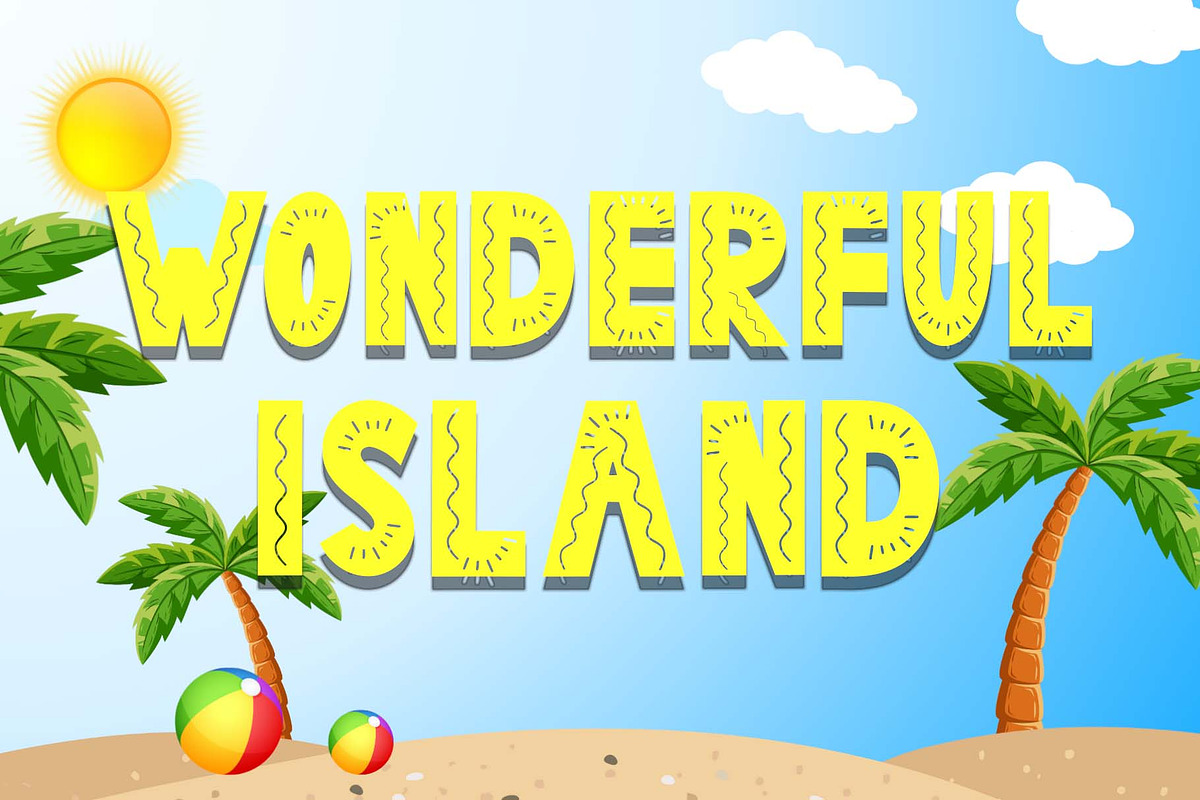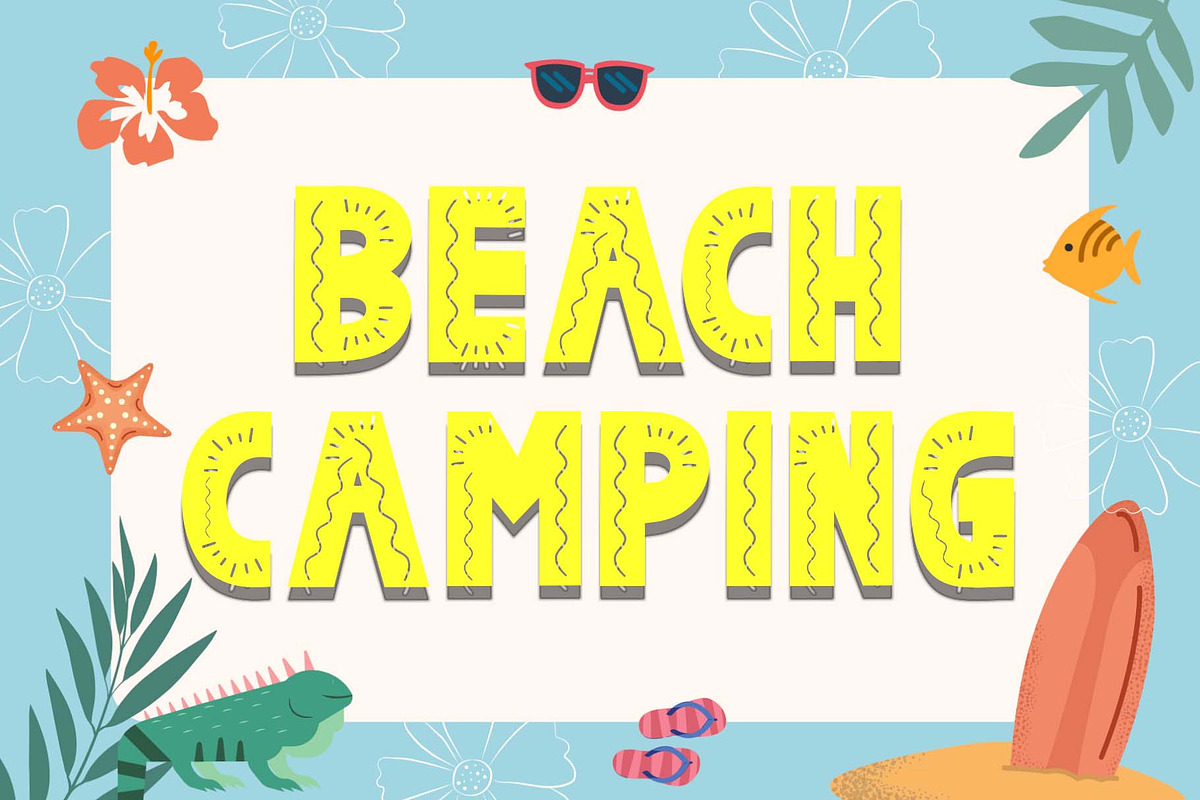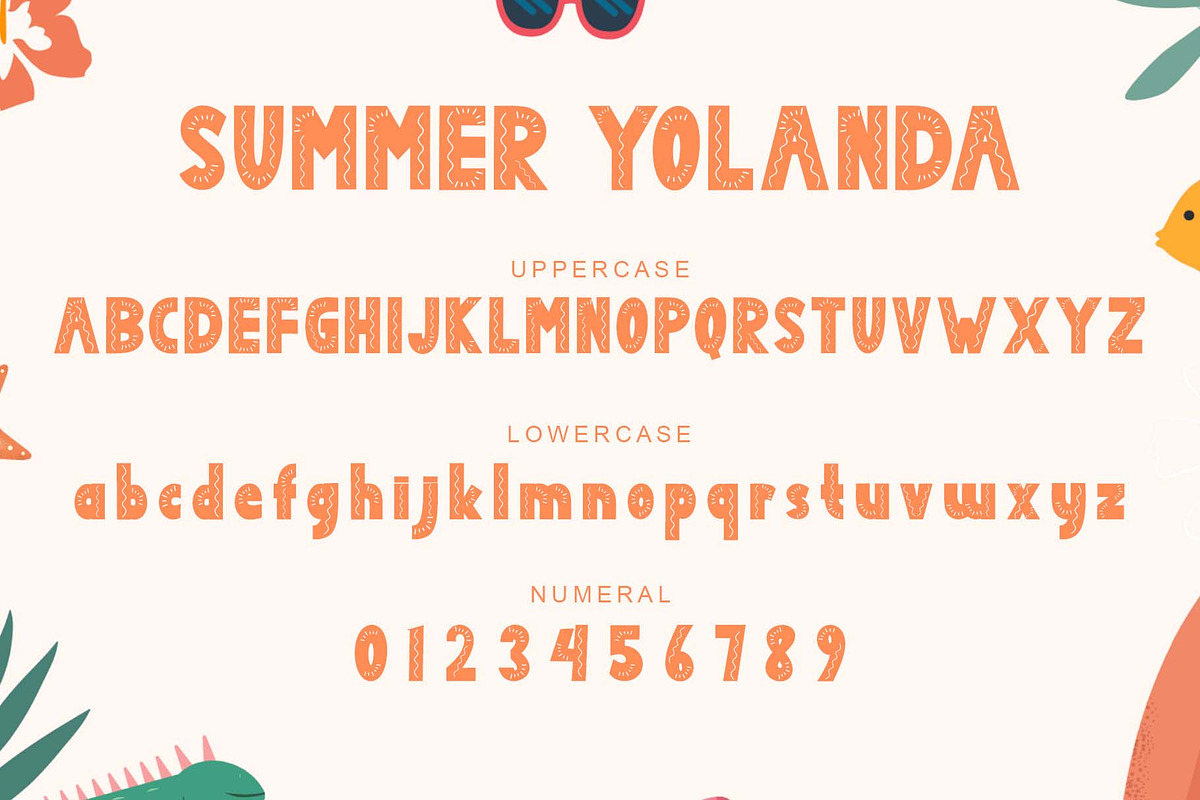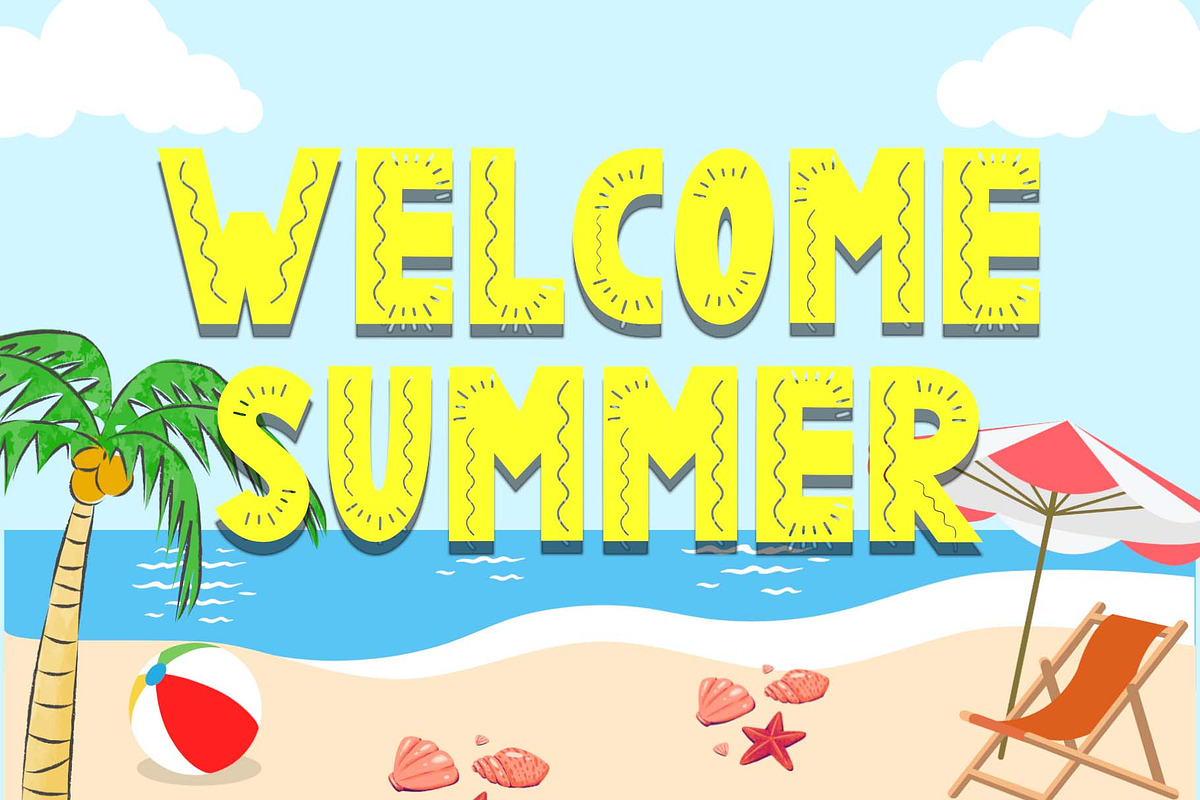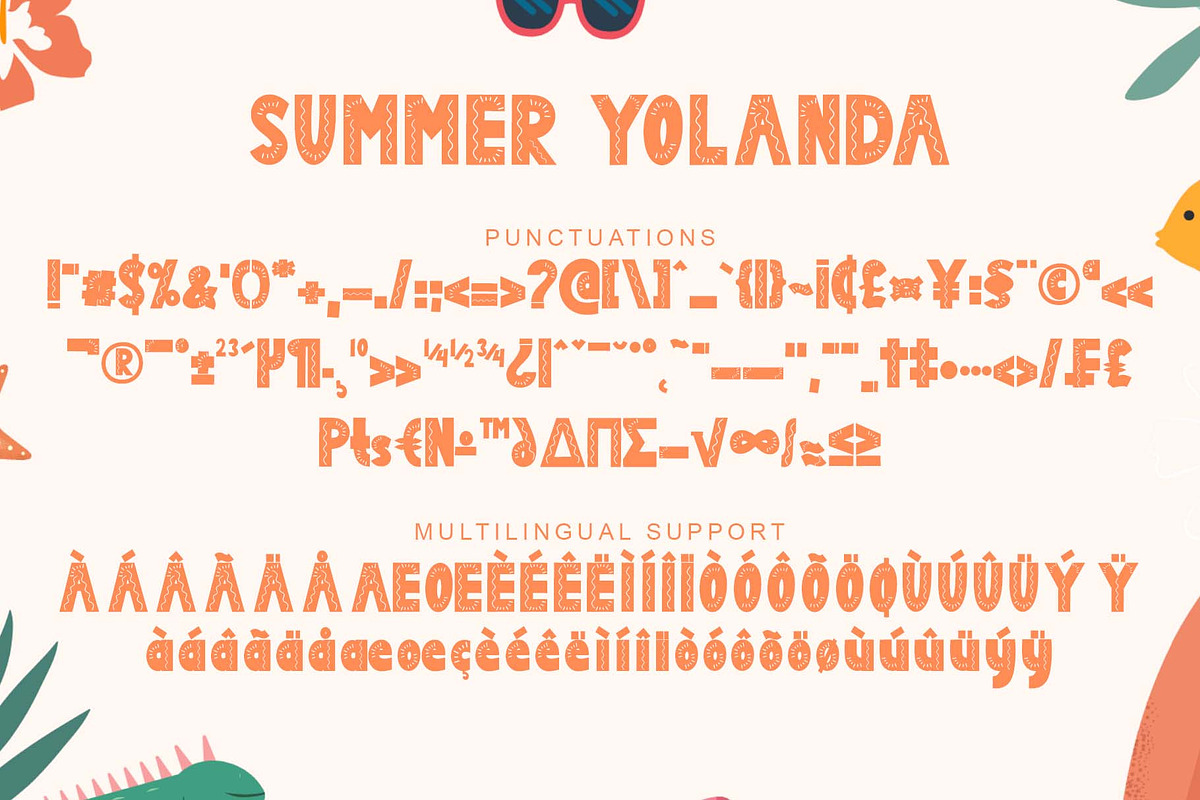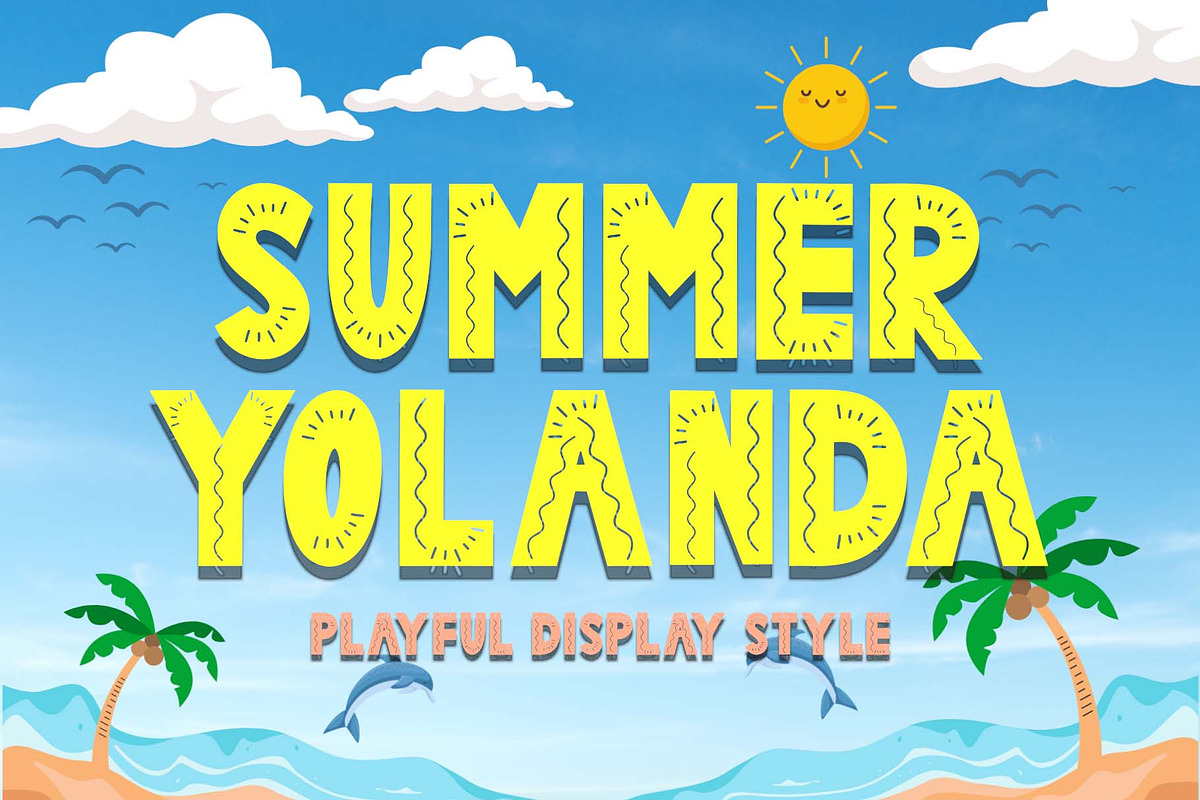
Summer Yolanda
"Summer Yolanda" is a cute and unique display font. This font is equipped with uppercase, lowercase, numerals, punctuations and multilingual support. It is very suitable for use in summer, holiday, vacation, spring, invitation, birthday, poster, banner, print, sticker, logo and others.